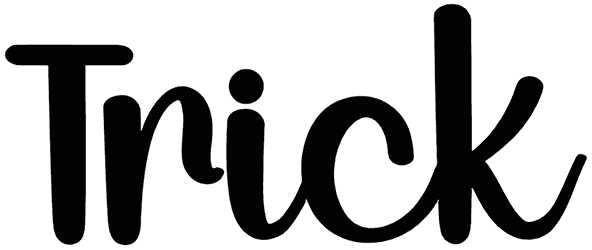
Trick Font
It may be called Trick, but do you really think we need to trick you into downloading this handwritten font? The cute yet sexy flow of its characters is enough to convince you, so there’s no point in taking any longer to download this. You know you’re gonna be doing it eventually.
After all, who can passup such a wonderful opportunity to style their words like they’re made of Christmas magic or written in a love potion, and hence, great for romantic designs?